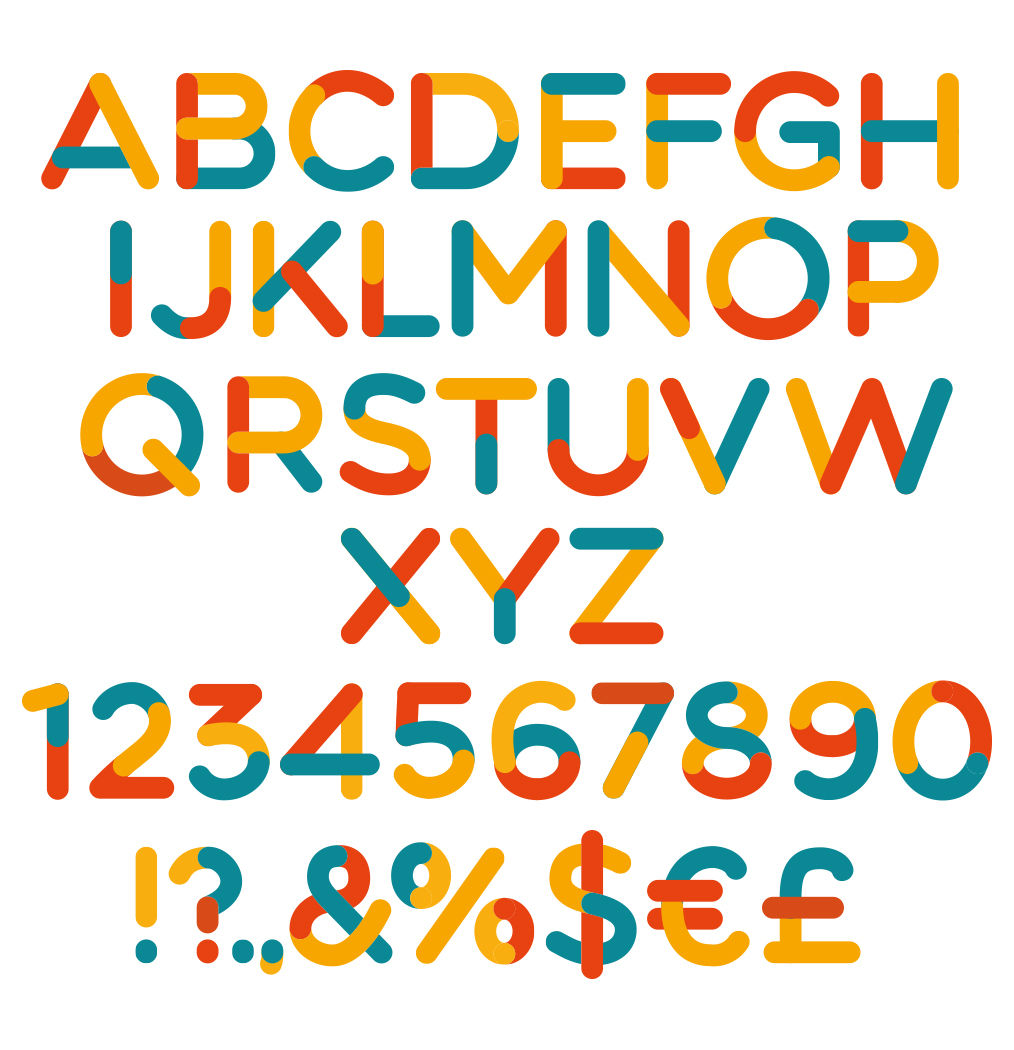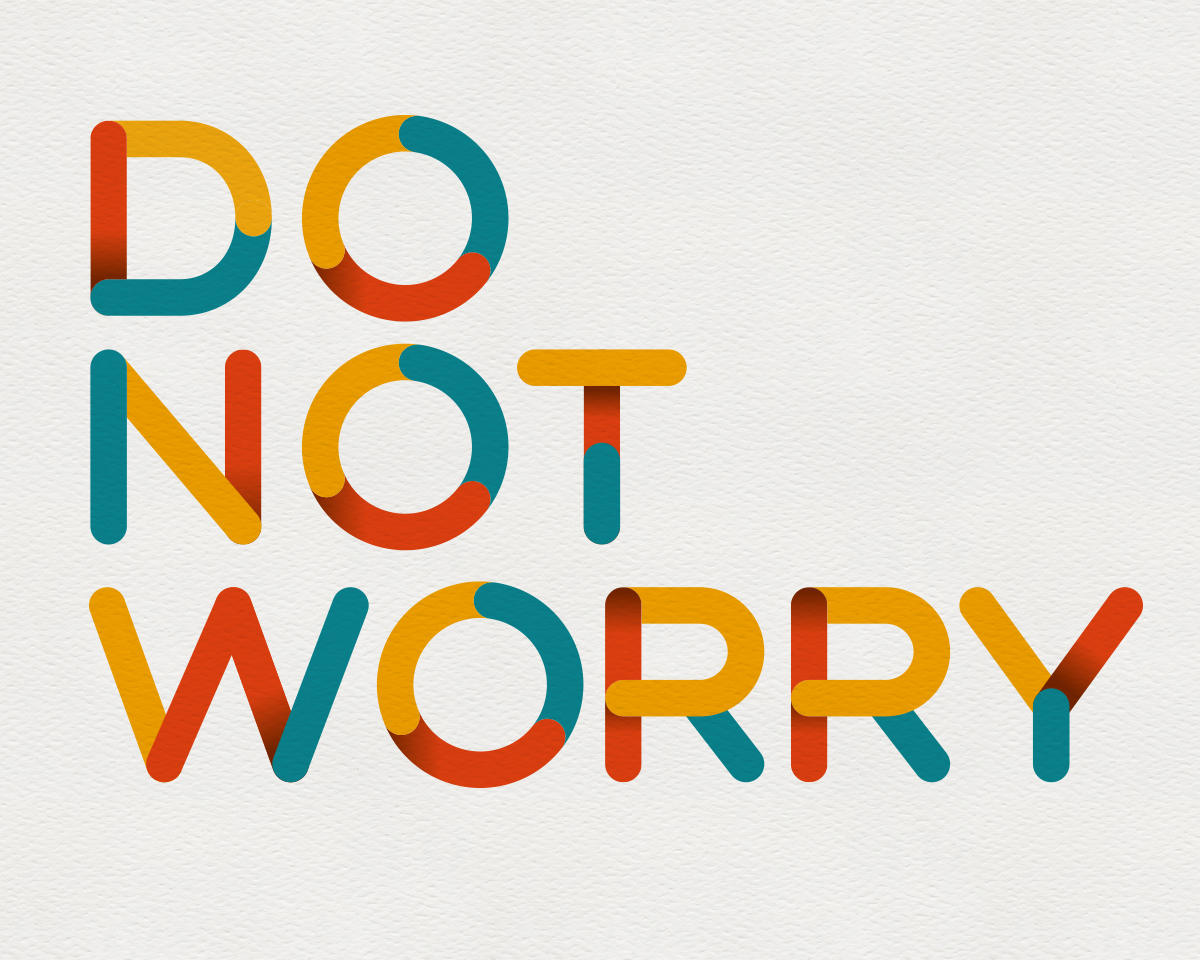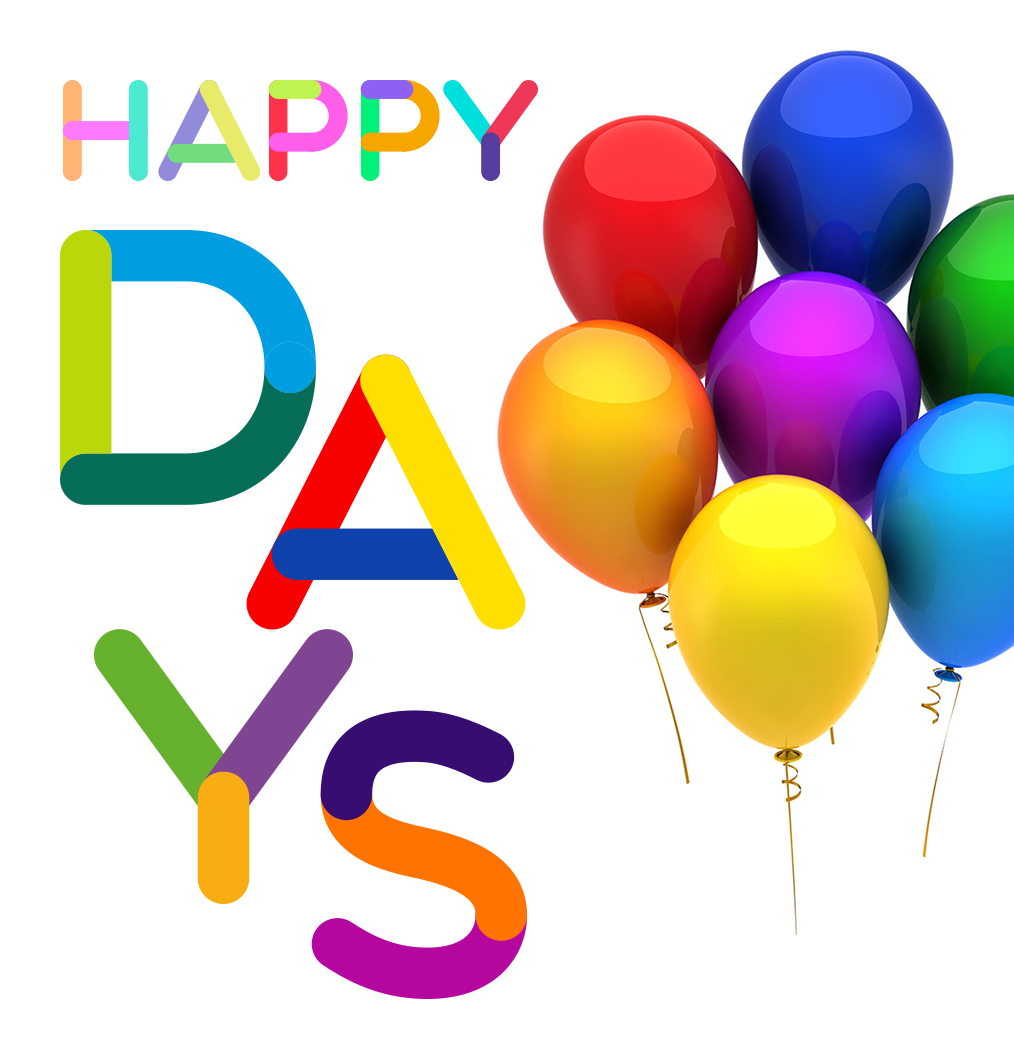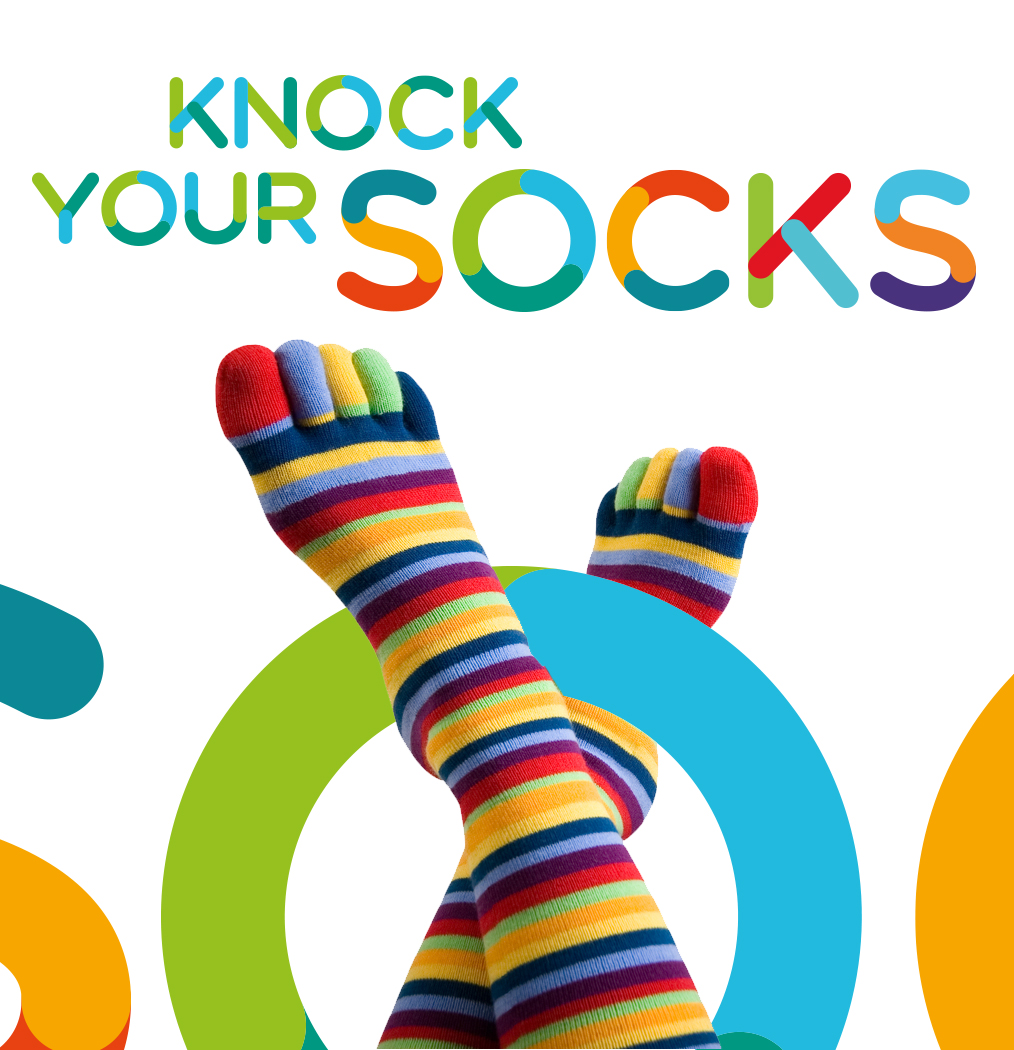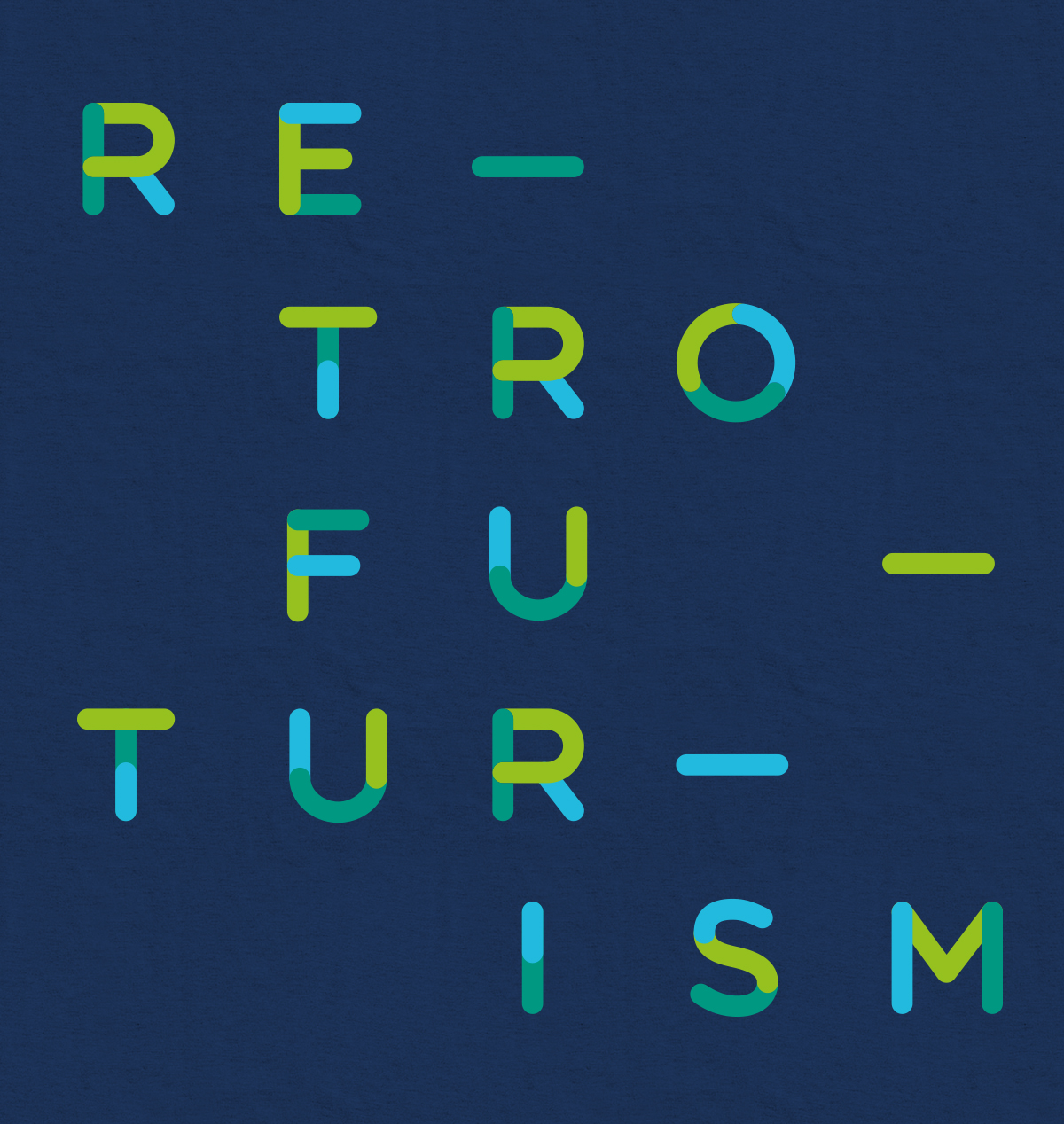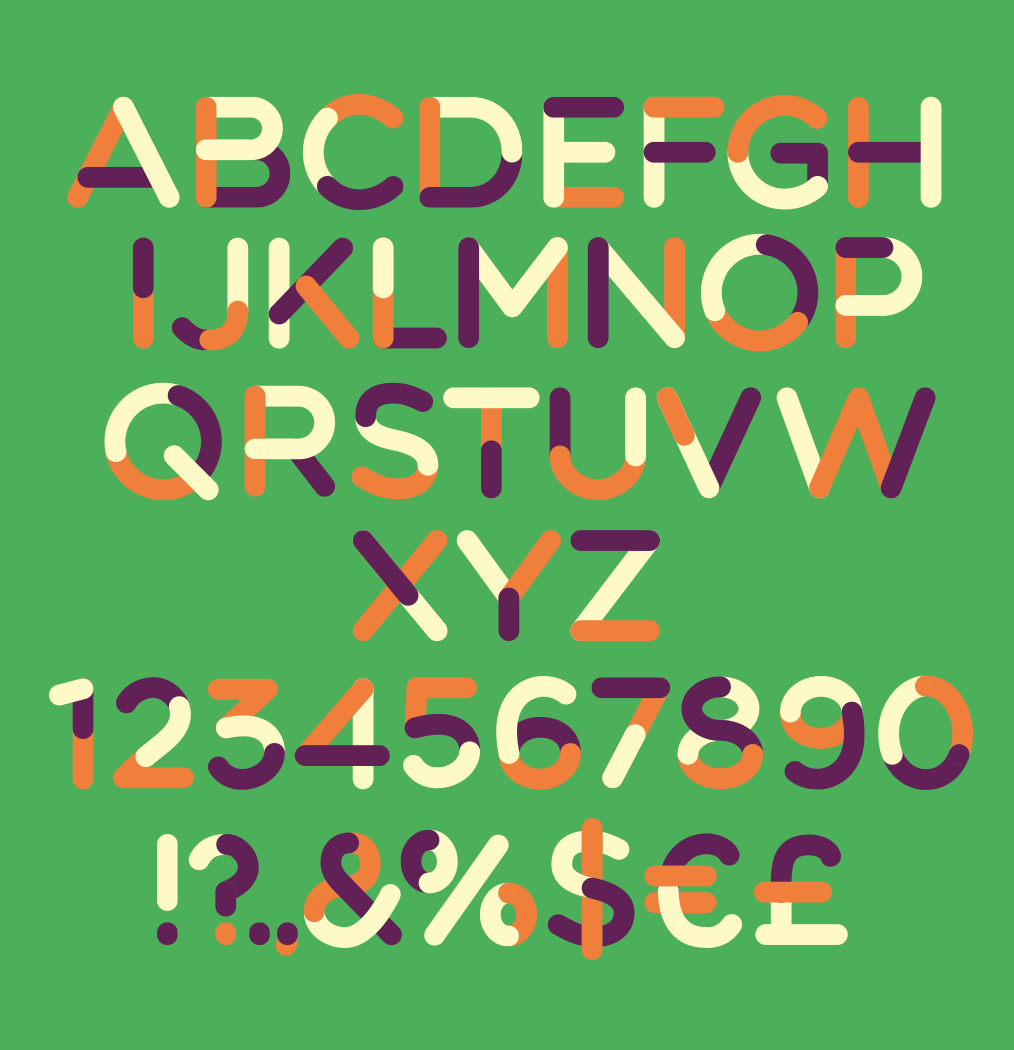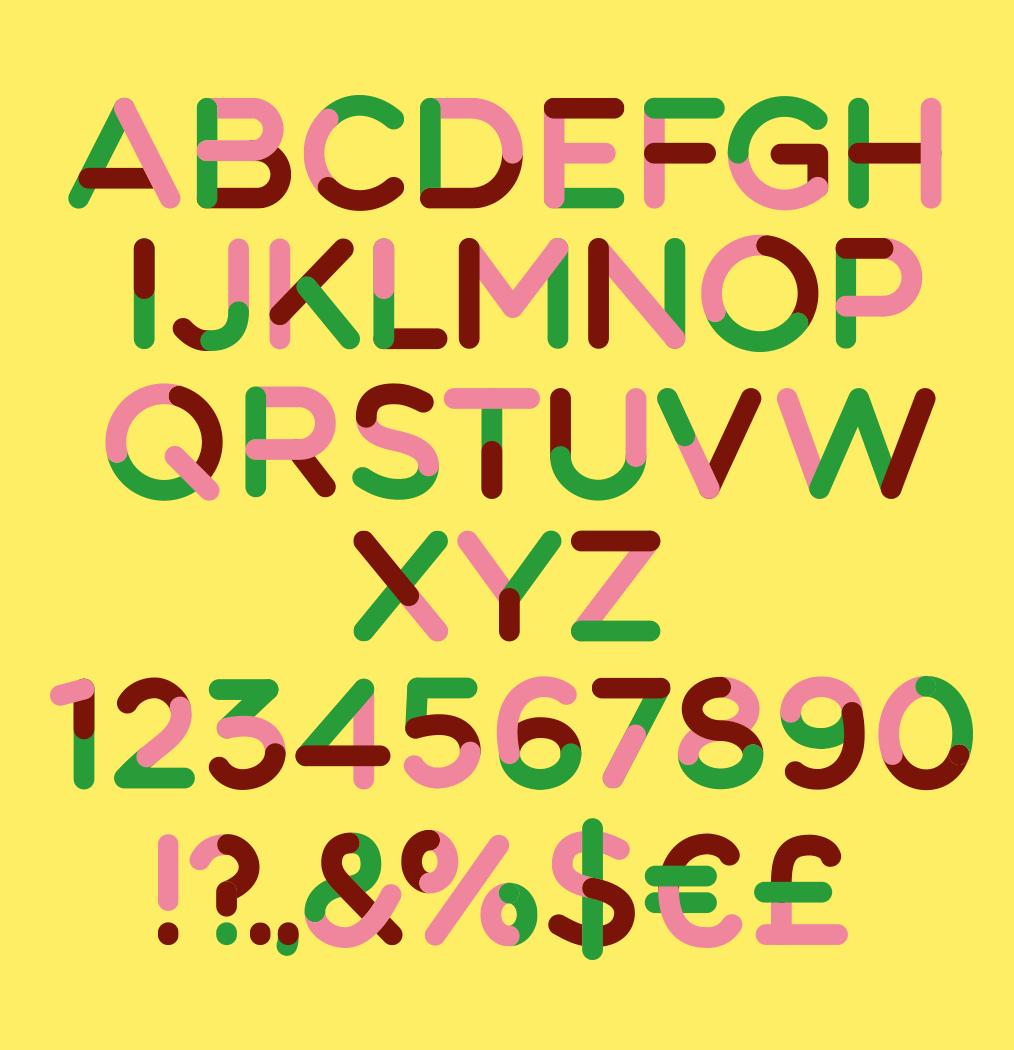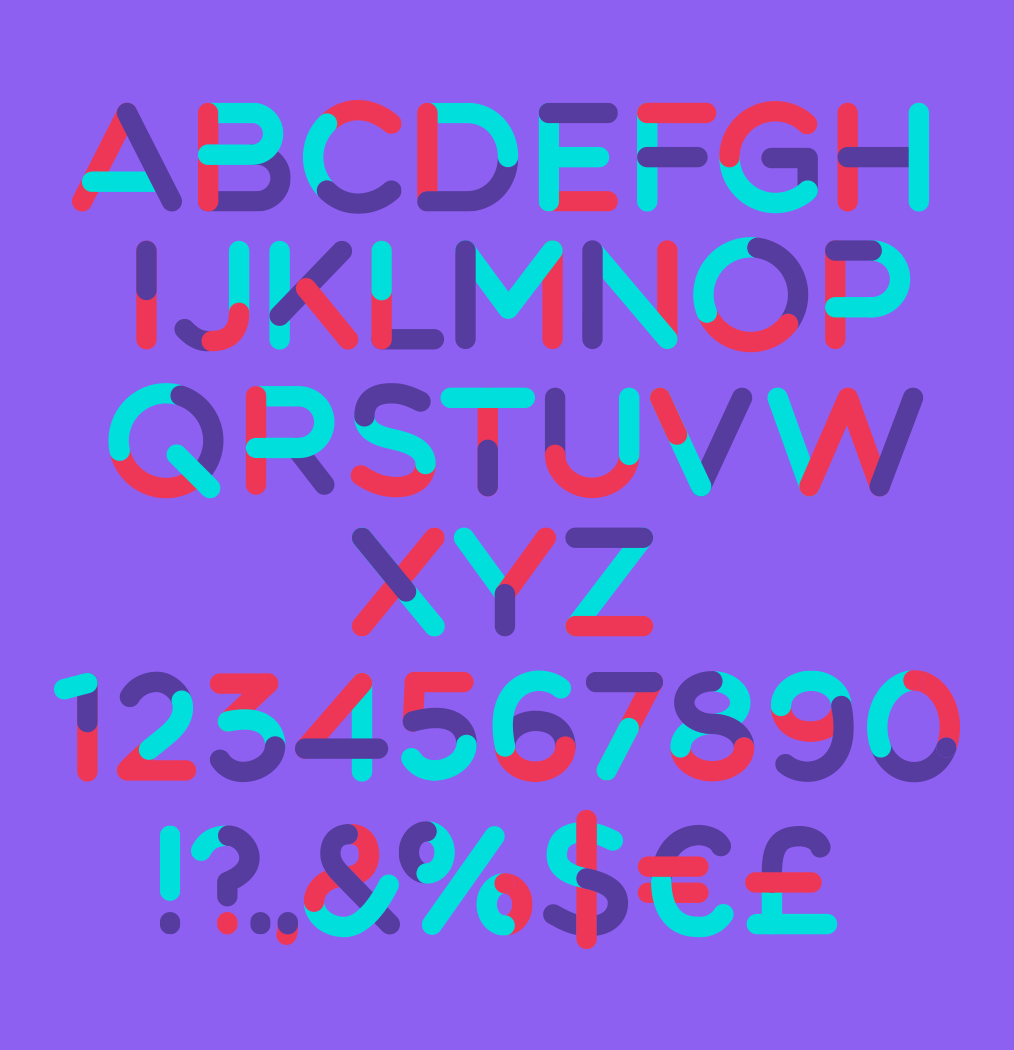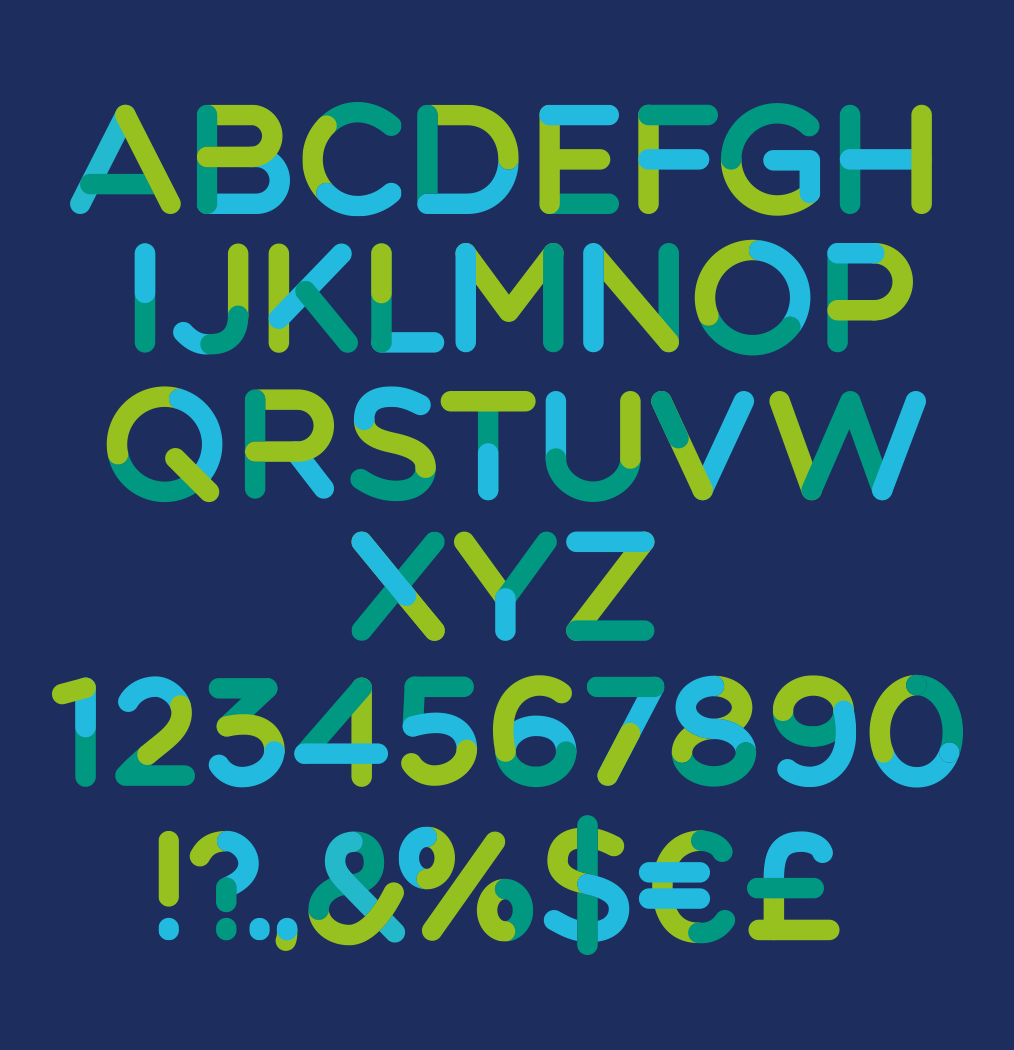
Free Tricolor Typeface – Vector Typeface
Tricolore, a free typeface that will give you creative freedom to do more or less anything.
With this colorful vector typeface you can create short texts for headlines, posters, logos or anything else.
Projects where you want to show the colorful side of yours, designs where you want to attract people with the use of bright colors or combination of colors, you can use Tricolore easily.
Preview of Tricolore free vector typeface from Ivan Filipov